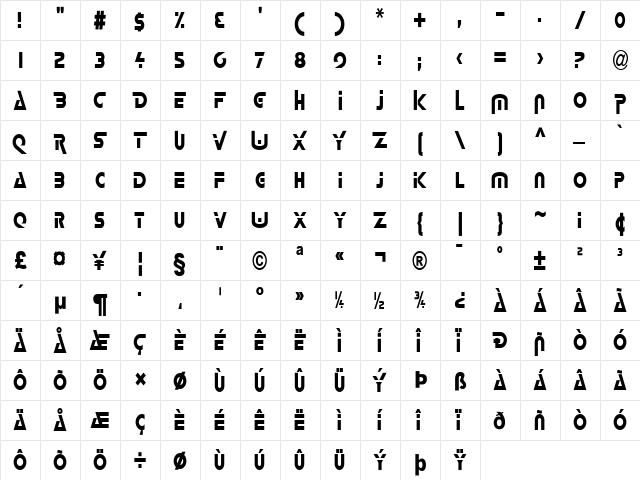
Delta-Condensed Regular
Design Context for Delta-Condensed Typeface
Delta-Condensed takes a measured approach to typography — its balanced proportions and neutral character make it a reliable workhorse for both digital and print work. Its narrow stance lets it pack a punch even in space-constrained designs.